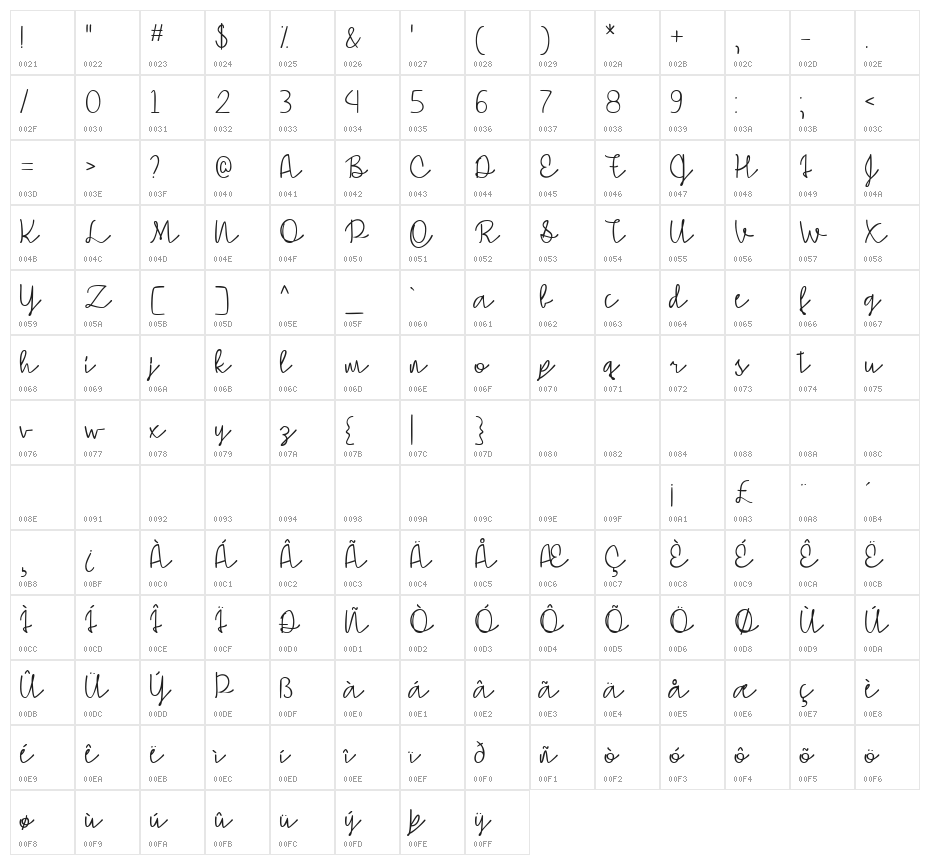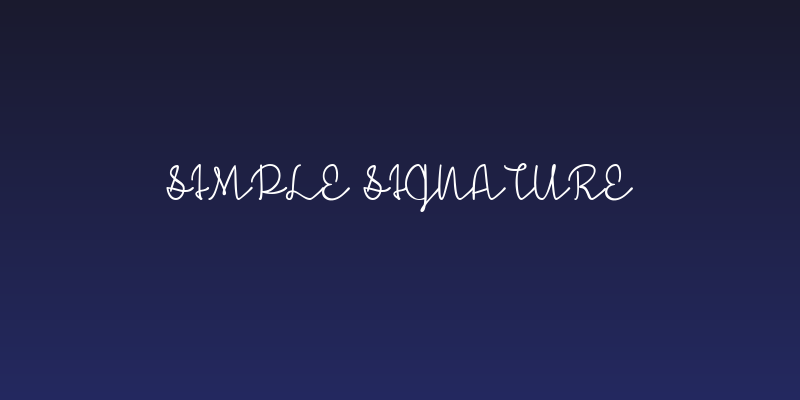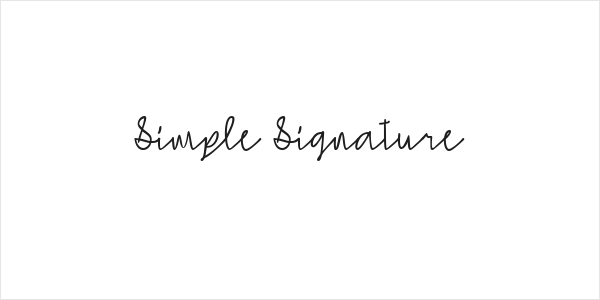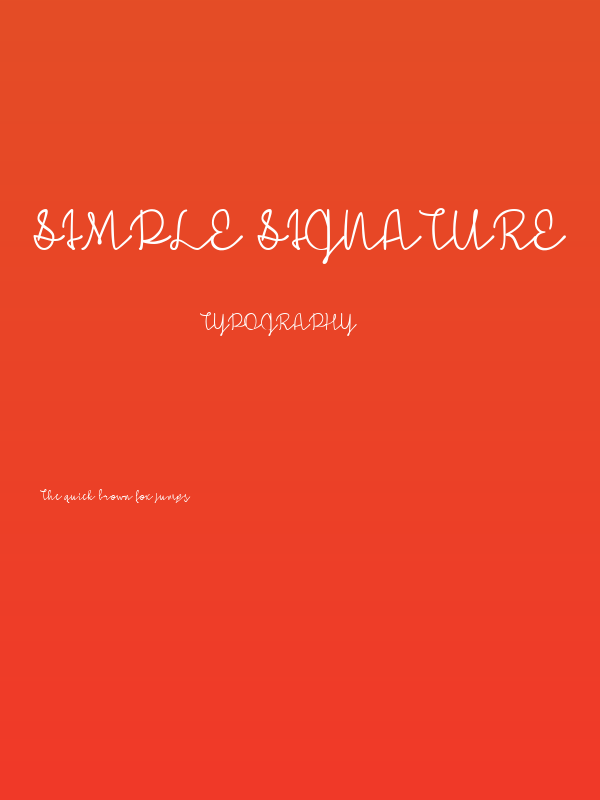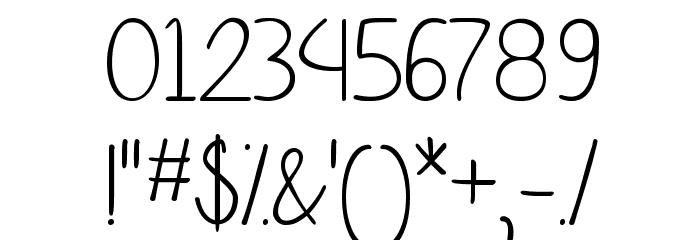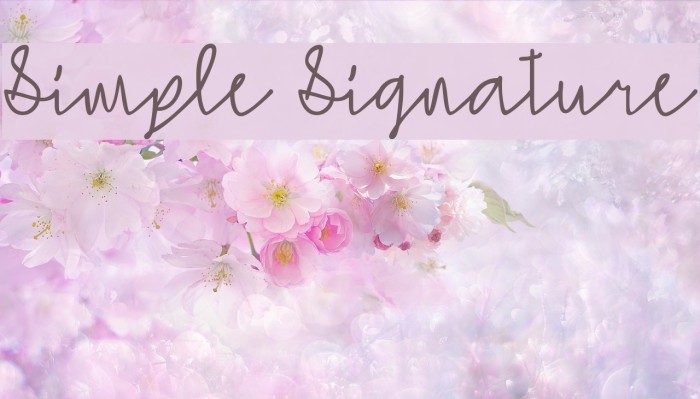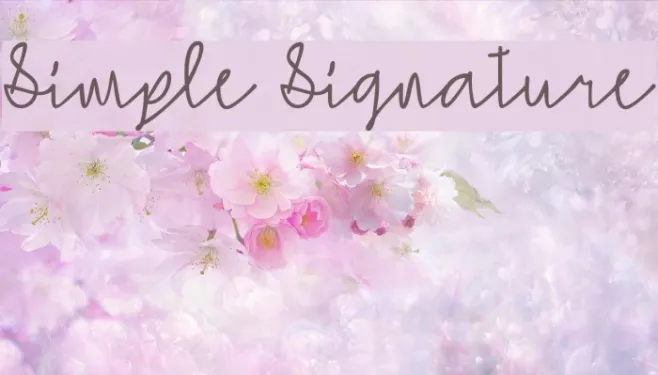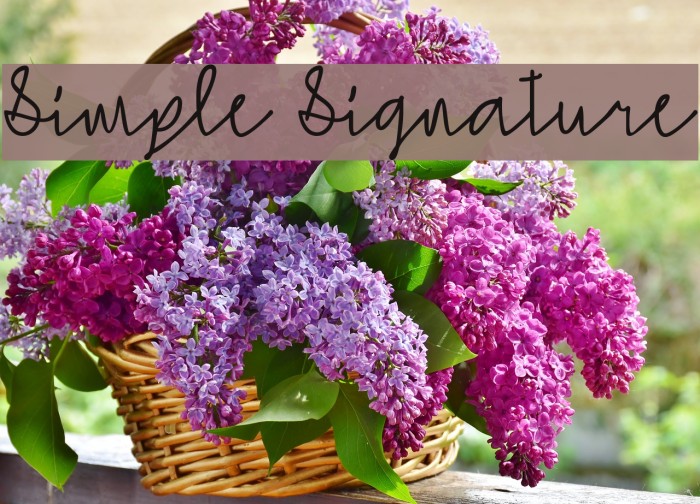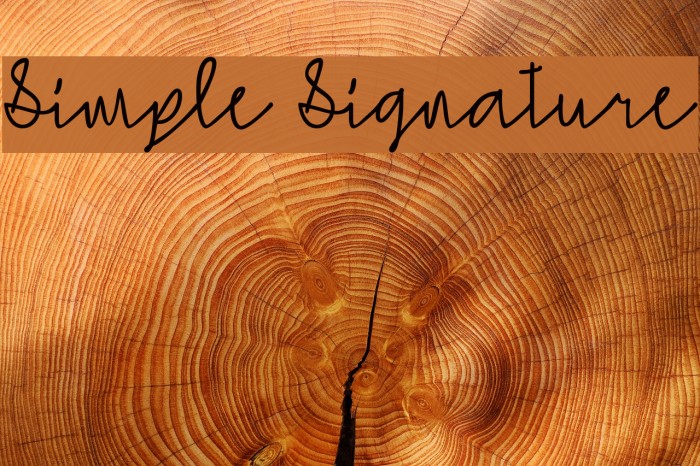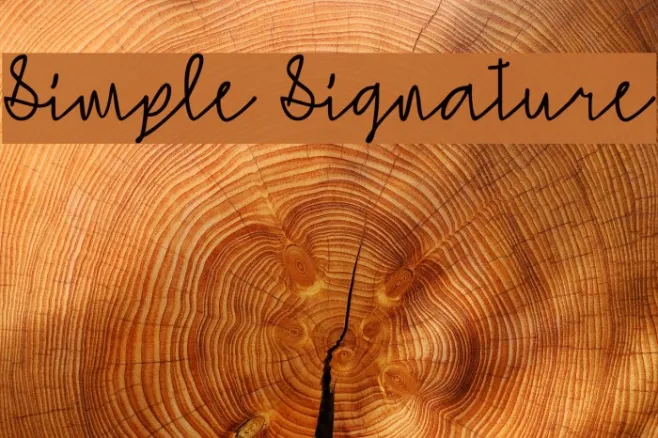
Simple Signature Font
Simple Signature Description
This font features a handwritten, cursive style that mimics the fluidity and elegance of a personal signature. The letters are connected with smooth, flowing lines, giving it a natural and organic appearance. The uppercase letters maintain a consistent height, while the lowercase letters vary slightly in size, adding to the casual and informal feel. The numerals are clear and legible, with a slight slant that complements the overall script style. Special characters are well-integrated, maintaining the same flowing aesthetic. This font is ideal for projects that require a personal touch, such as invitations, greeting cards, or branding materials.
| Overall Style | Casual, Elegant |
| Proposed Projects | Ideal for invitations, greeting cards, personal branding, and logos. |